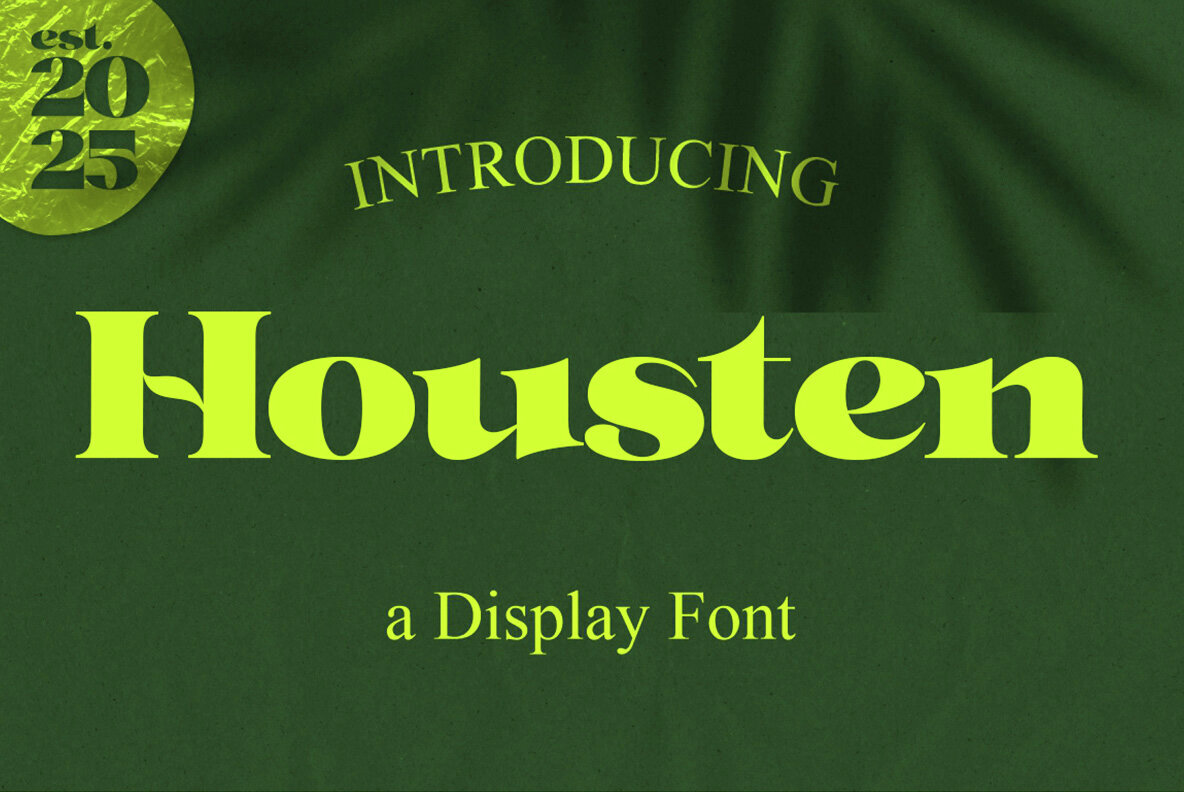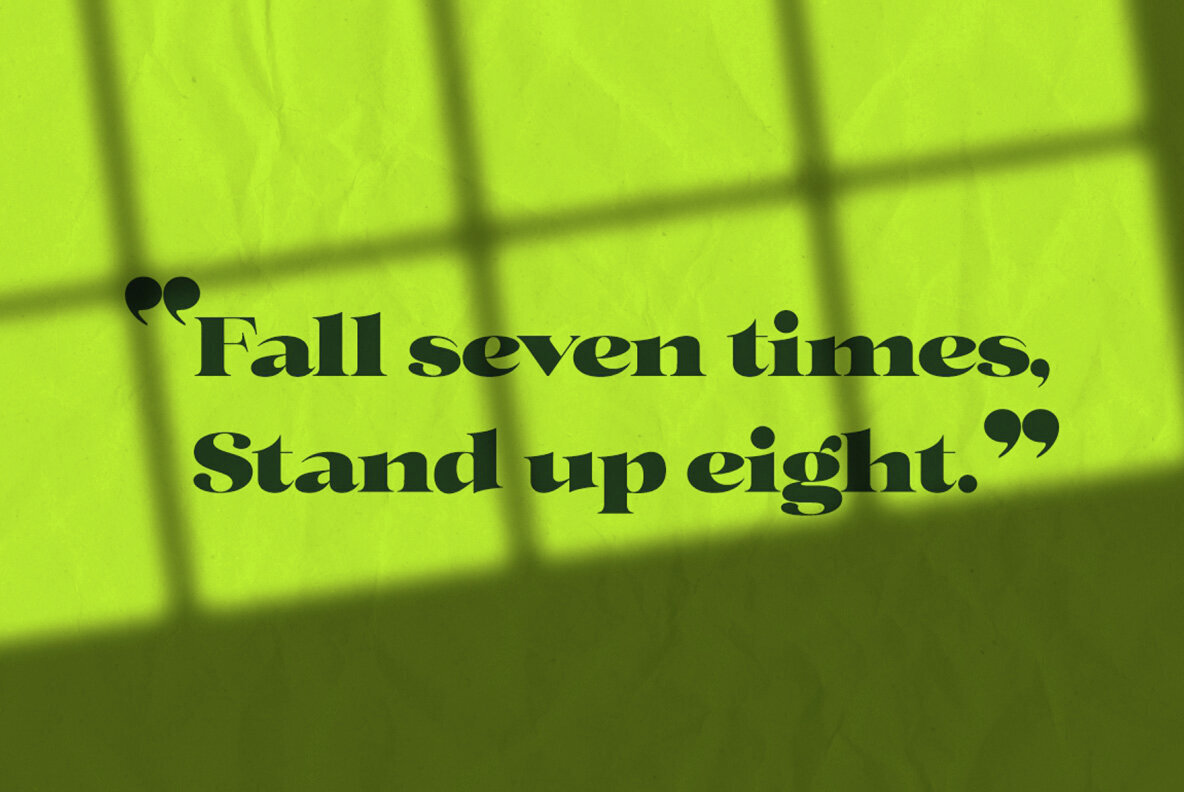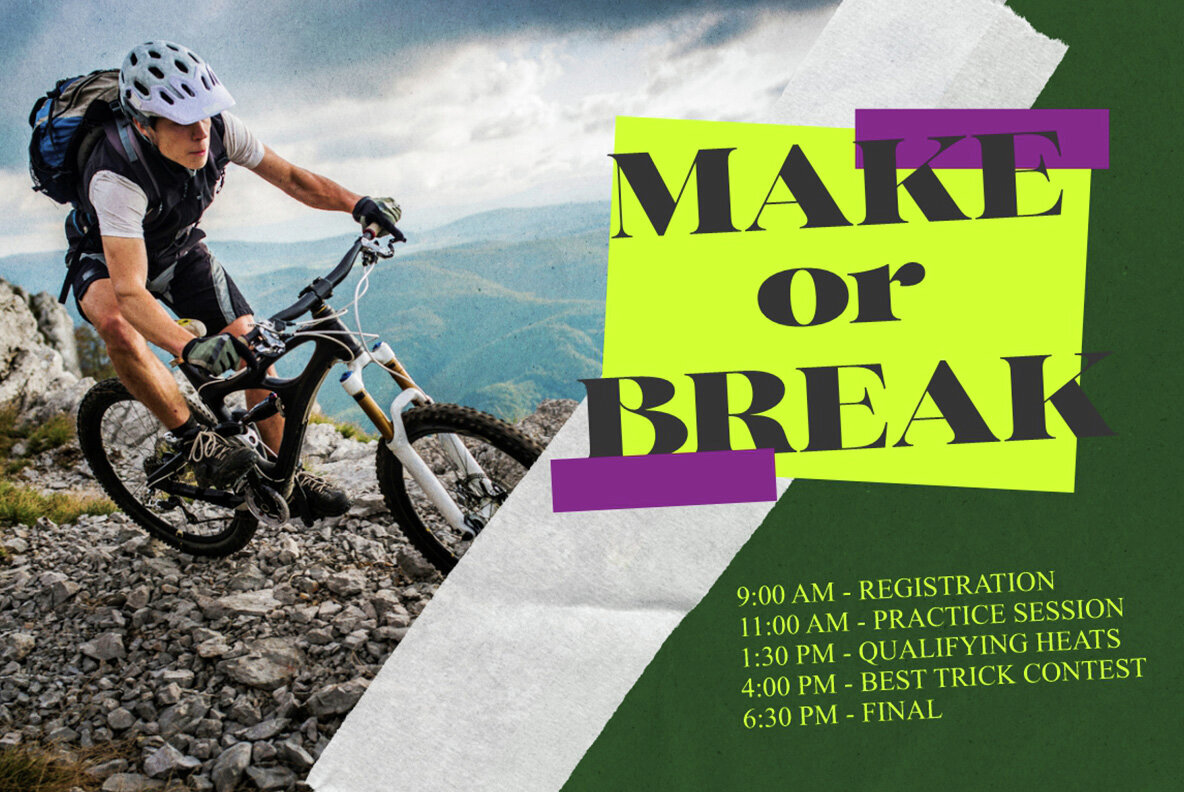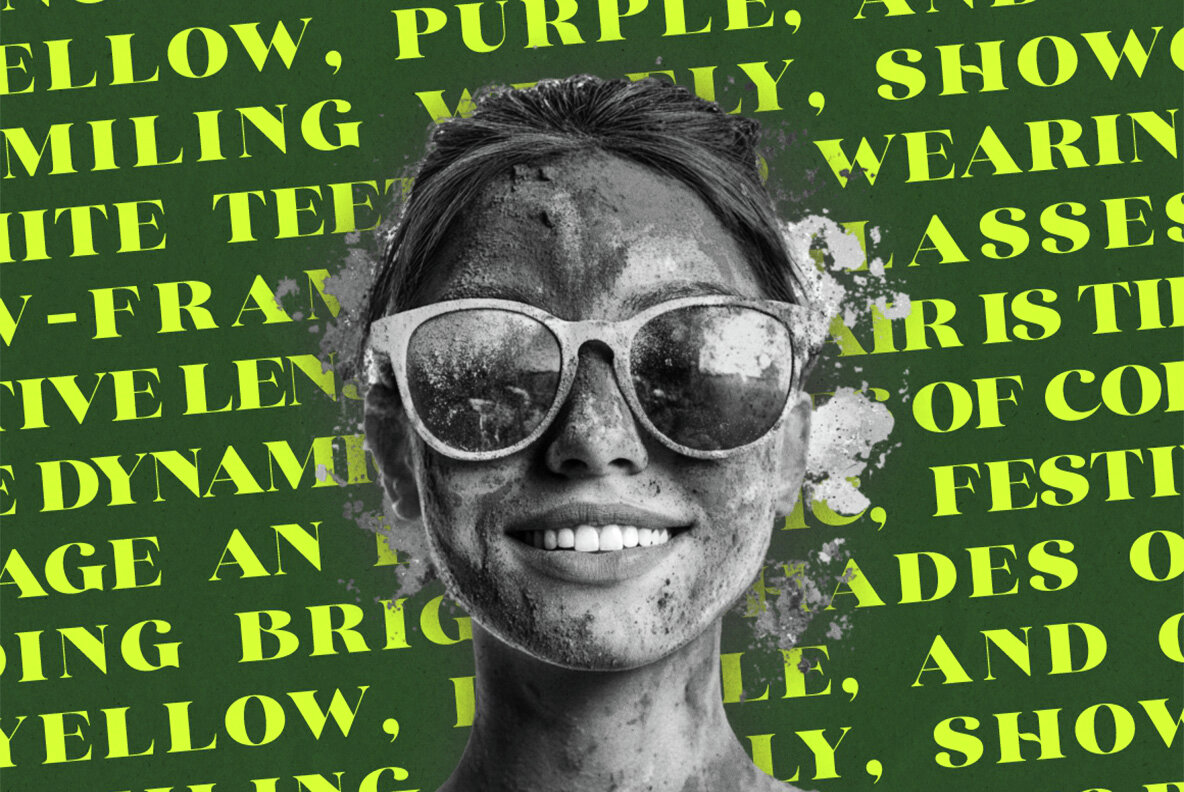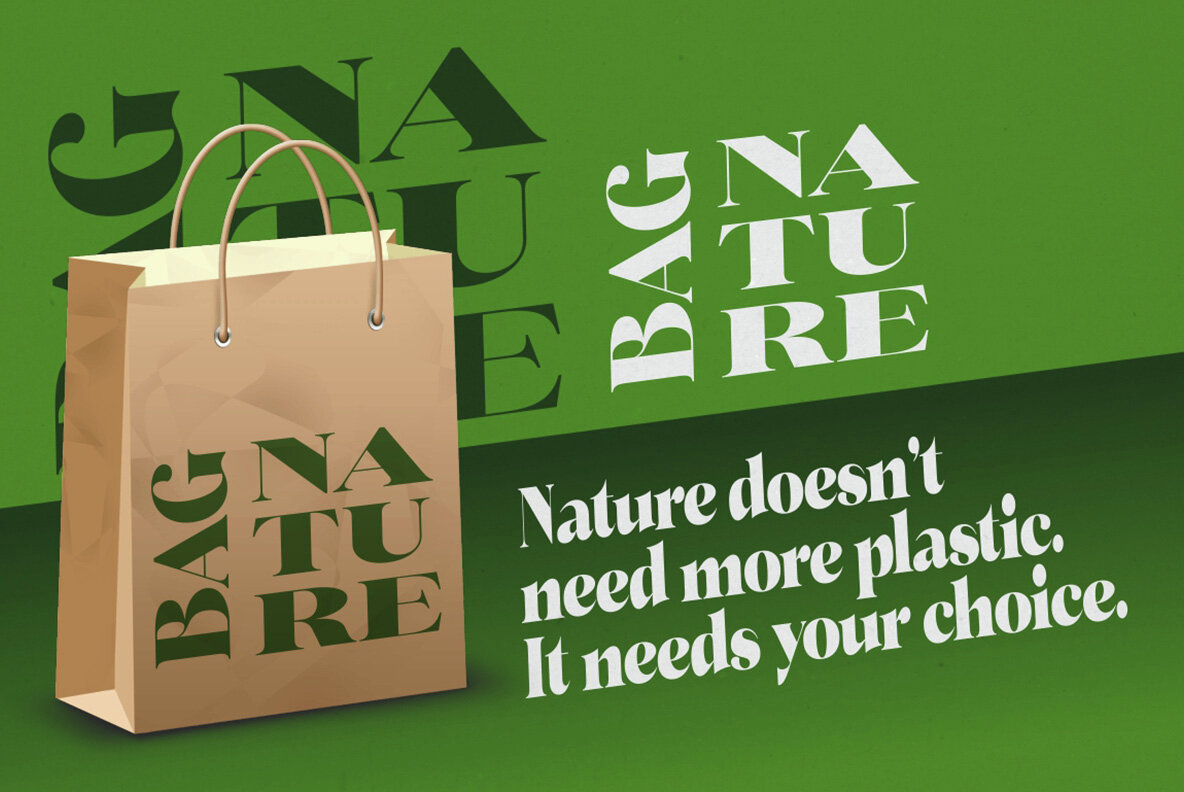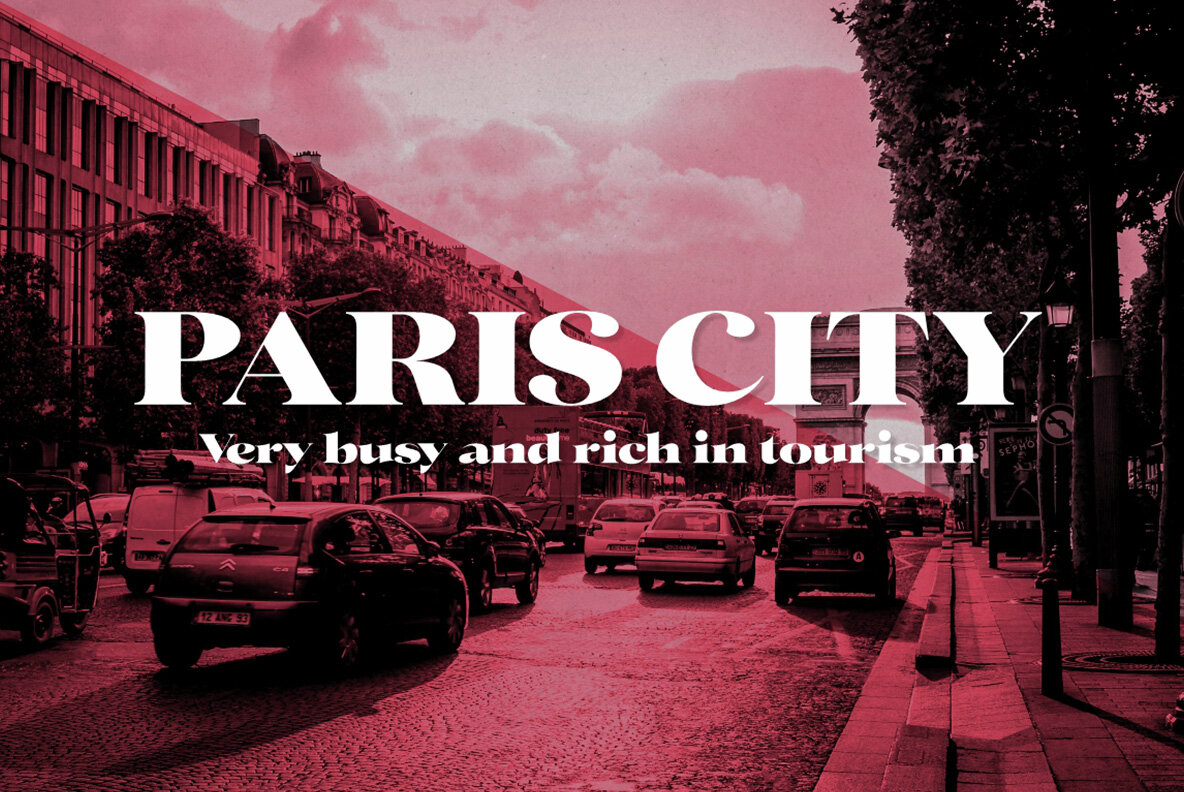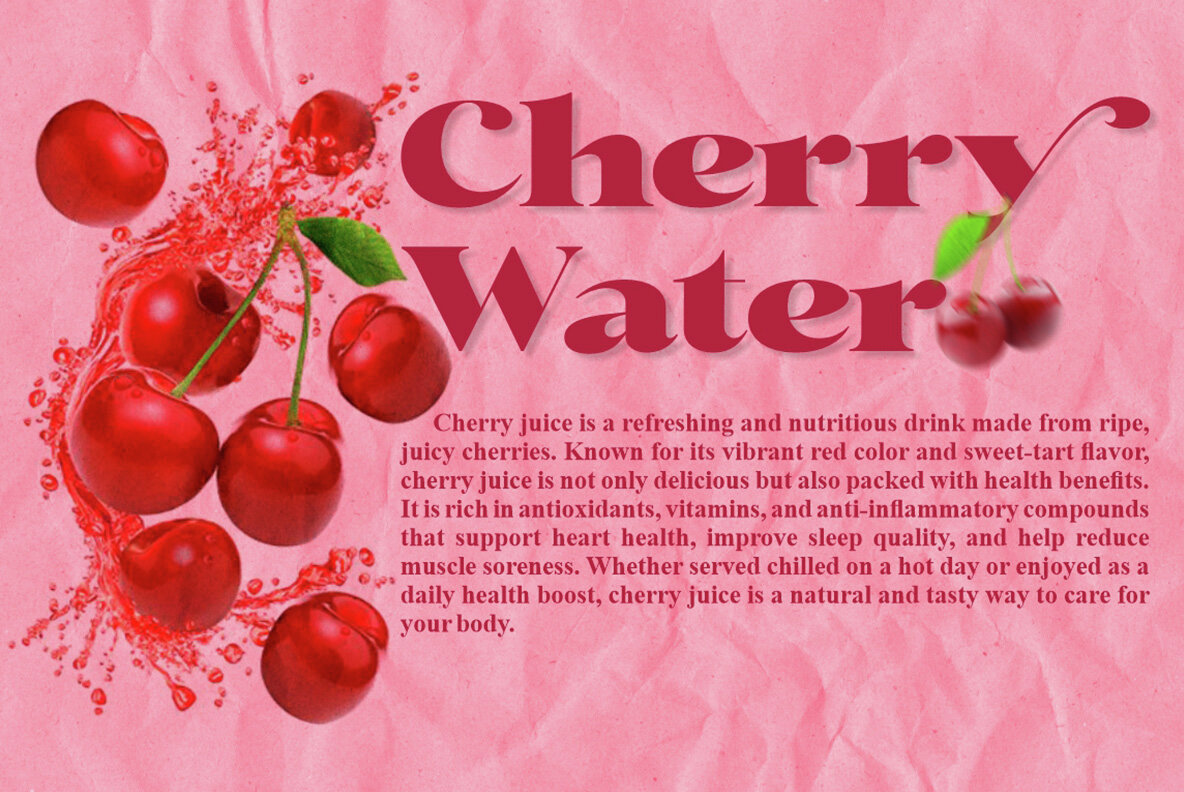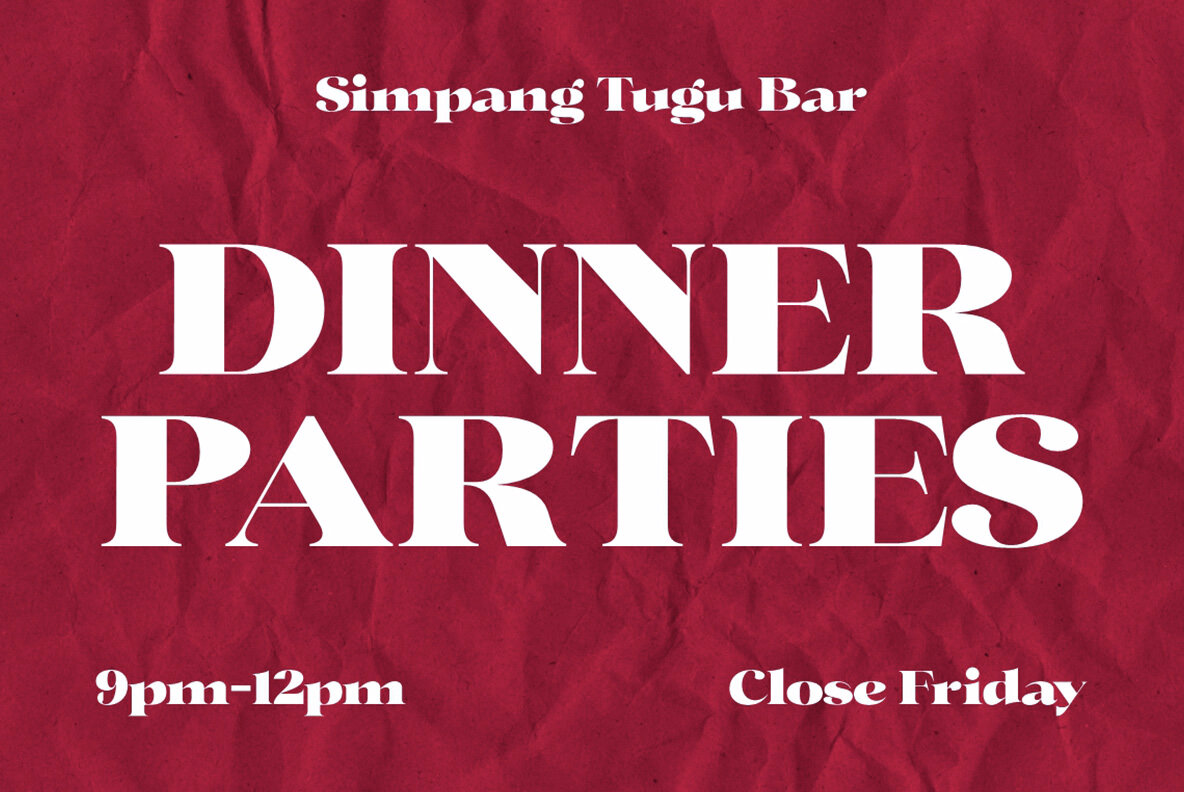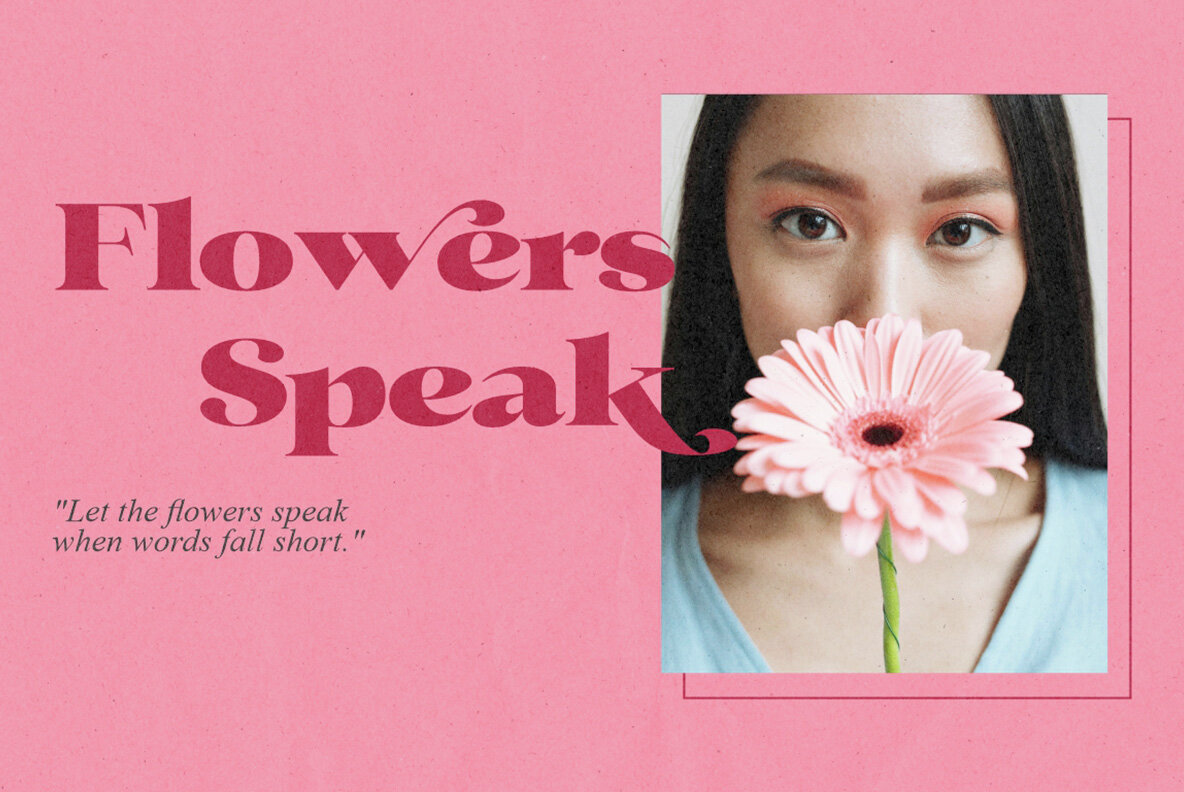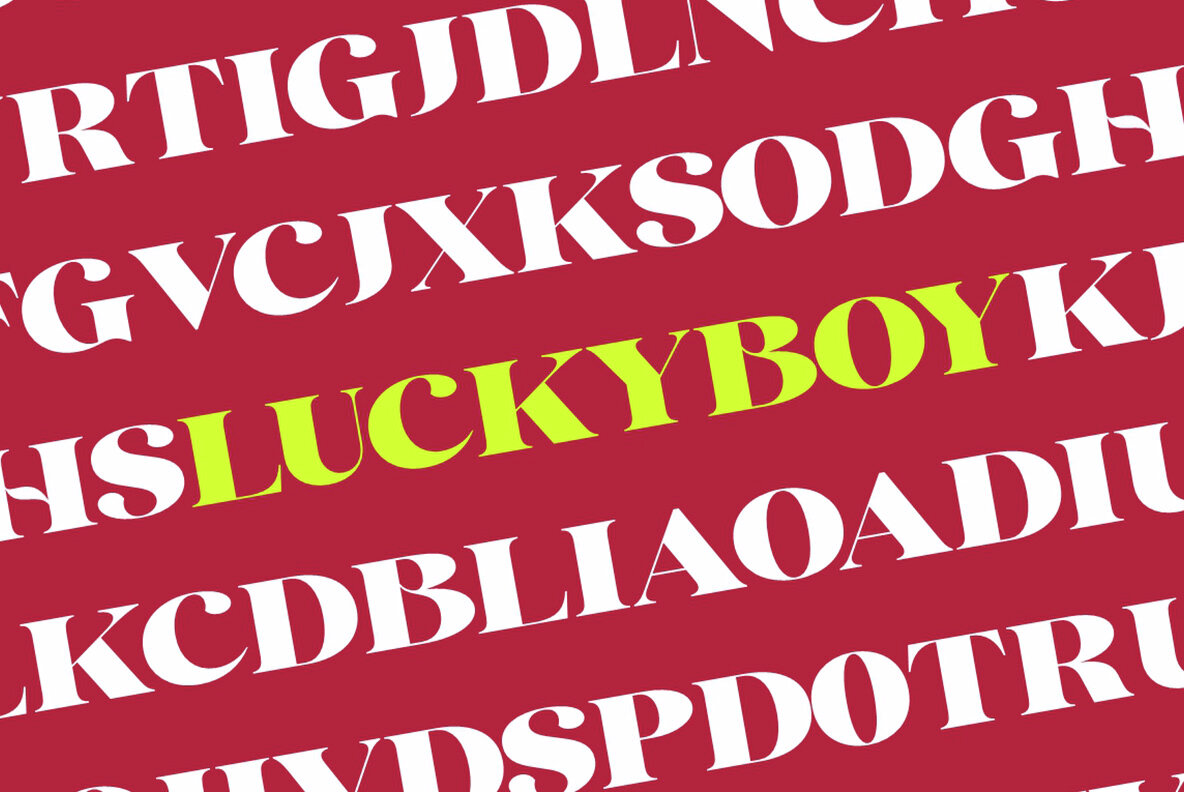
Housten Font
Housten emerges as a classy and modern typeface tailored specifically for display designs. Drawing inspiration from contemporary fashion and the timeless appeal of classic typography, it boasts a beautiful and bold aesthetic. The font includes an array of alternate characters and ligatures, enhancing its versatility. Housten epitomizes luxury, elegance, and sophistication, making it ideal for various applications. From logos and invitations to cards, magazines, and social media kits, its presence speaks volumes. Whether used in apparel, fashion, or lifestyle projects, Housten is synonymous with opulence and refinement. Features:Housten Typeface: A Blend of Class and Modernity
Perfect For Elegant Designs